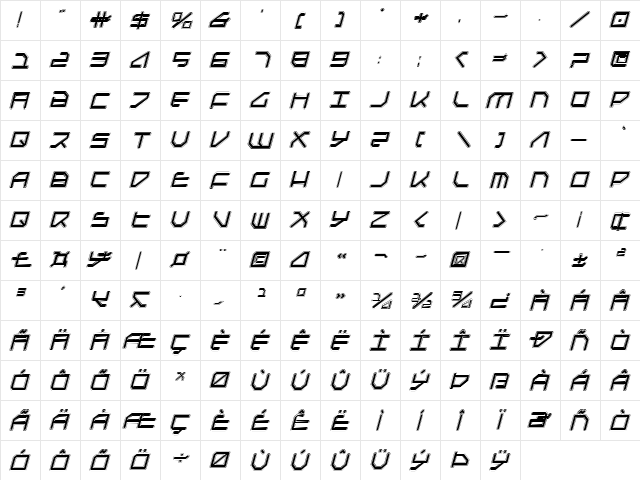
Federapolis College Italic Italic
Design Context for Federapolis College Italic Typeface
Federapolis College Italic has the bold swagger of sports branding: strong, assertive letterforms designed to dominate headlines and jerseys alike. The dynamic lean of this cut emphasises speed and emphasis in any layout.
A natural choice for gym brands, fantasy sports, jersey lettering, and action-driven headlines.
Pro Tip: Use Federapolis College Italic in all-caps headlines where its athletic energy can fully express itself. Pair with a solid, simple sans for supporting text.